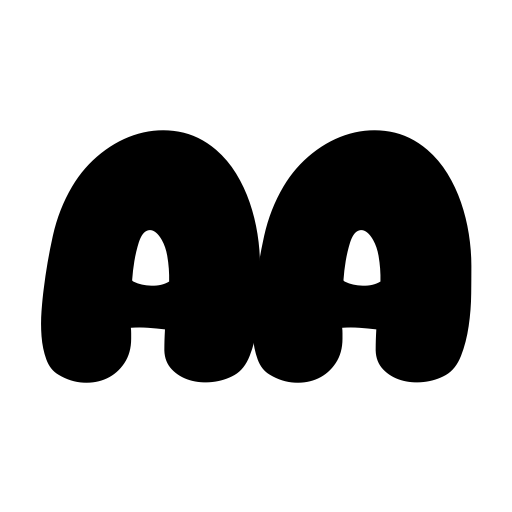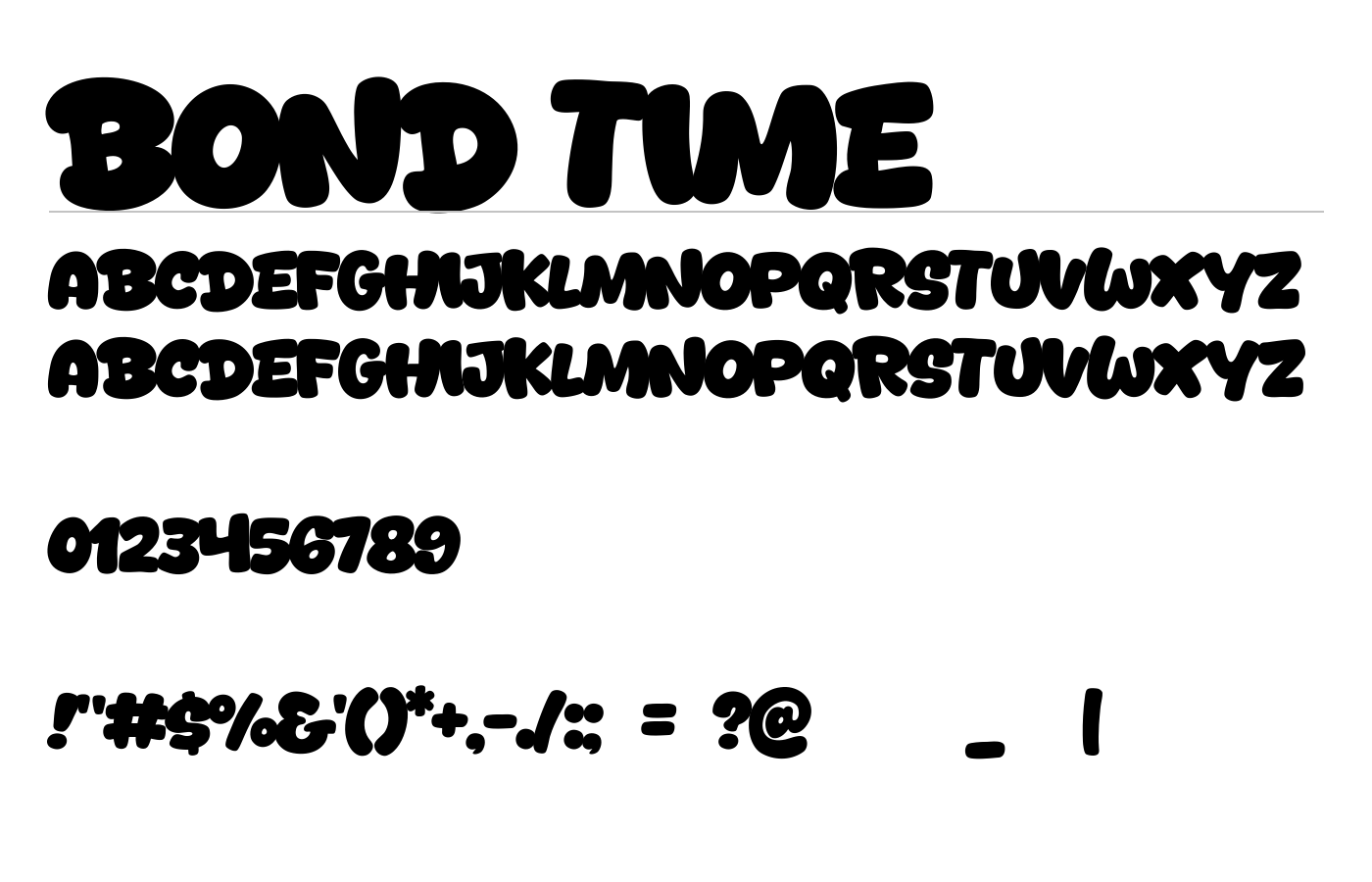
Bond Time is a bold, playful sans serif font with thick, rounded letterforms that create a friendly and approachable vibe. Its chunky style and uniform stroke weight make it ideal for fun, casual designs such as posters, branding for children’s products, or eye-catching headlines. This font works well where a strong, cheerful personality is needed to grab attention and convey energy.
Bond Time Font
About Bond Time Font
| Font family | Bond Time Font |